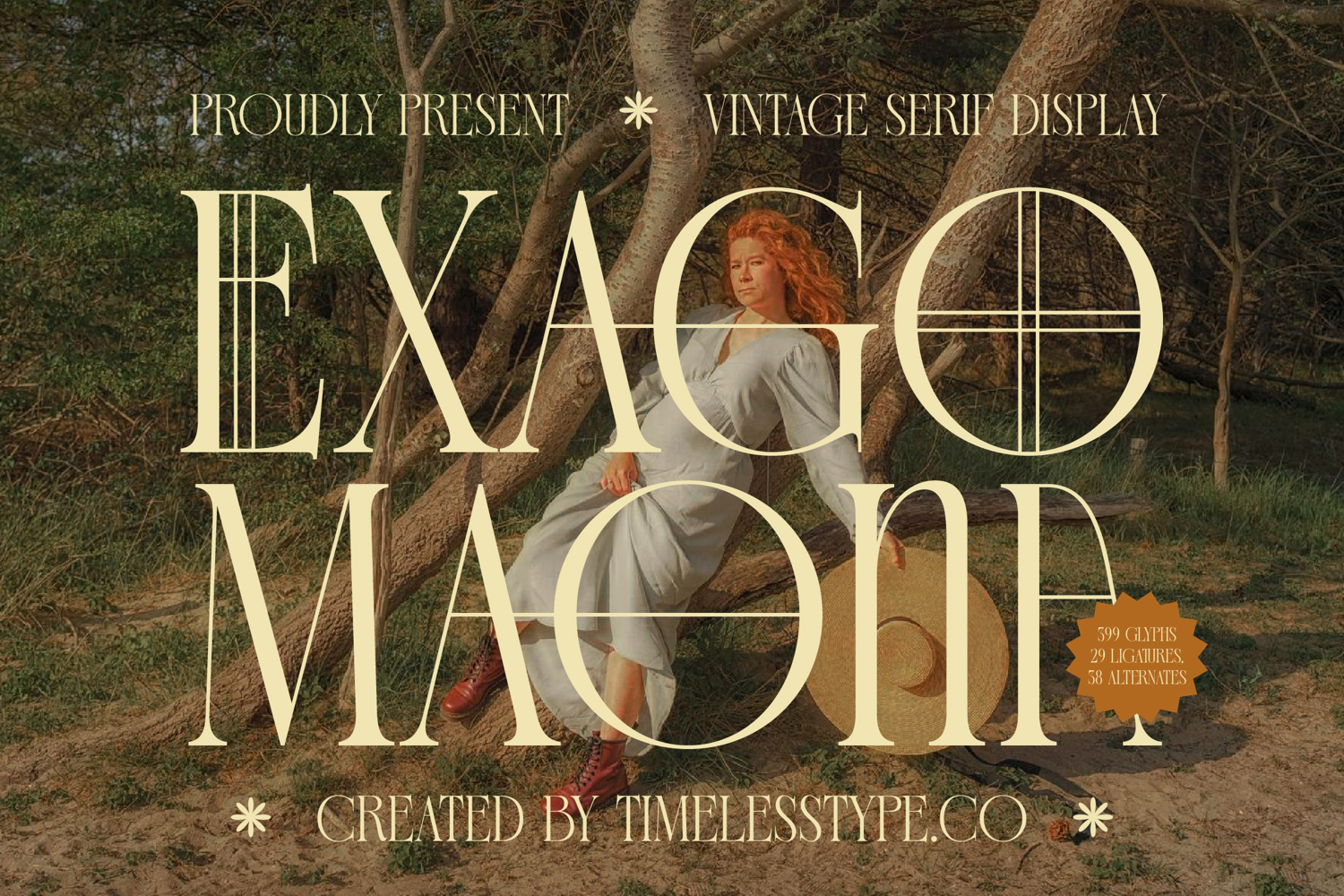
Exago Maona - Vintage Serif Display
Exago Maona Italic
Exago Maona
Exago Maona - Vintage Serif Display
Unleash a sense of timeless sophistication with Font Exago Maona - Vintage Serif Display Serif Display, a truly remarkable typeface designed to captivate and impress. This exquisite display serif commands attention with its inherent grace and distinctive aesthetic, perfectly blending vintage charm with a modern, refined sensibility. It’s an ideal choice for projects demanding an undeniable touch of class and artistic flair.
Experience the compelling visual interplay of high-contrast strokes and elegant serifs that define Font Exago Maona - Vintage Serif Display Serif Display. Its comprehensive character set includes 599 glyphs, 29 ligatures, and 38 alternates, offering unparalleled creative freedom to craft unique headlines and logos. With its extensive multilingual support, Font Exago Maona - Vintage Serif Display adapts seamlessly across global markets, making it incredibly versatile for international projects.
Font Exago Maona - Vintage Serif Display is perfectly suited for elevating a diverse range of design endeavors. It excels in luxury branding, high-end packaging, sophisticated editorial layouts, fashion campaigns, and magazine titles, where its commanding presence can truly shine. This font imbues any project with an air of exclusivity and artistic integrity, making it the ultimate choice for impactful visual communication.
Invest in a typeface that transcends fleeting trends. Font Exago Maona - Vintage Serif Display provides the perfect foundation for creating memorable and enduring designs that resonate with a discerning audience. Its unique blend of vintage allure and contemporary sharpness ensures your message is delivered with maximum impact and unforgettable style, setting your brand apart in any competitive landscape.